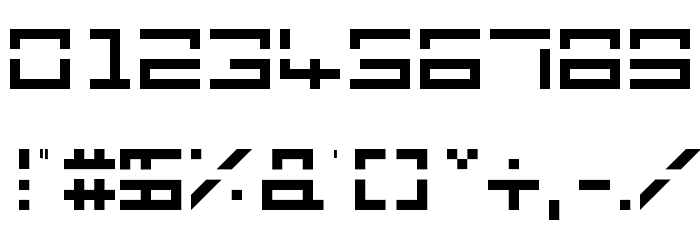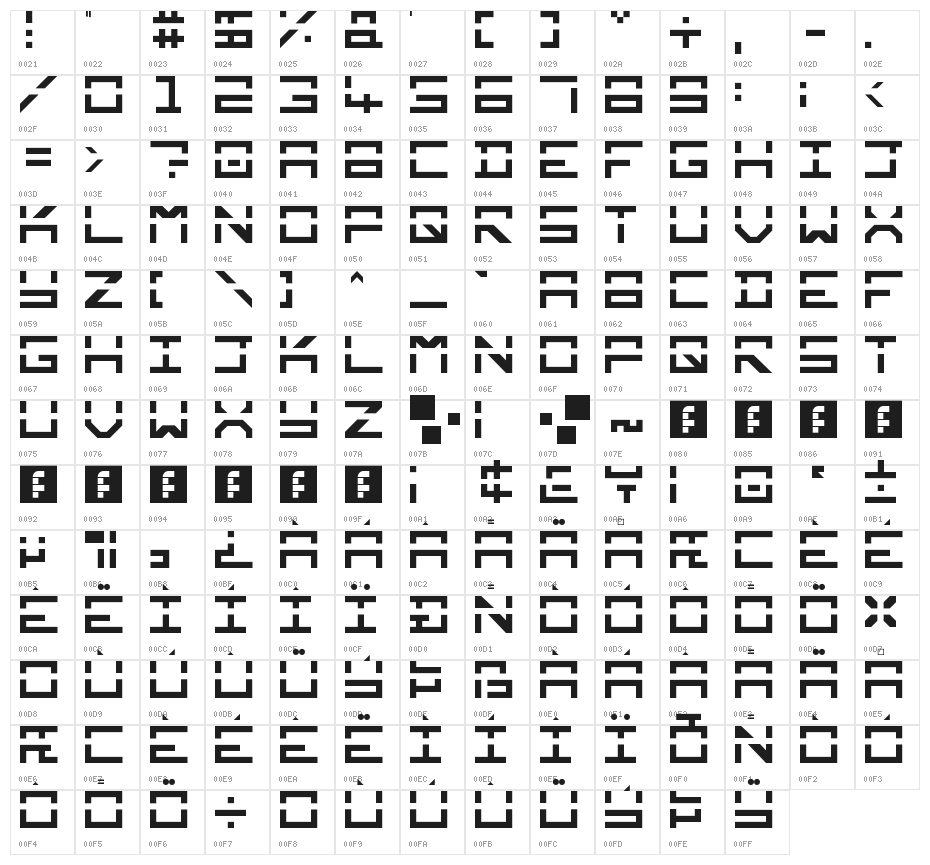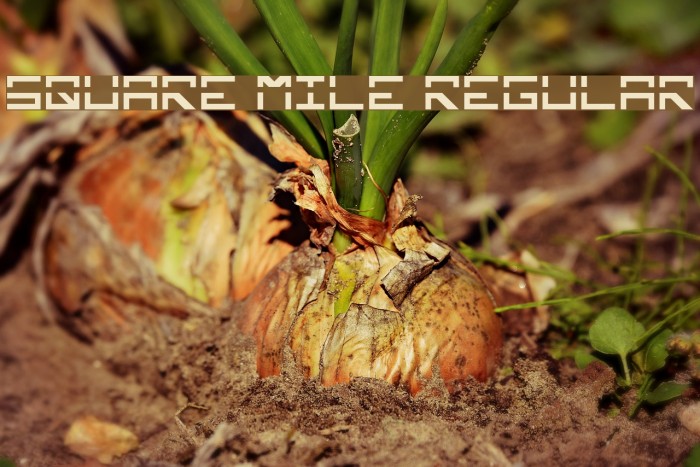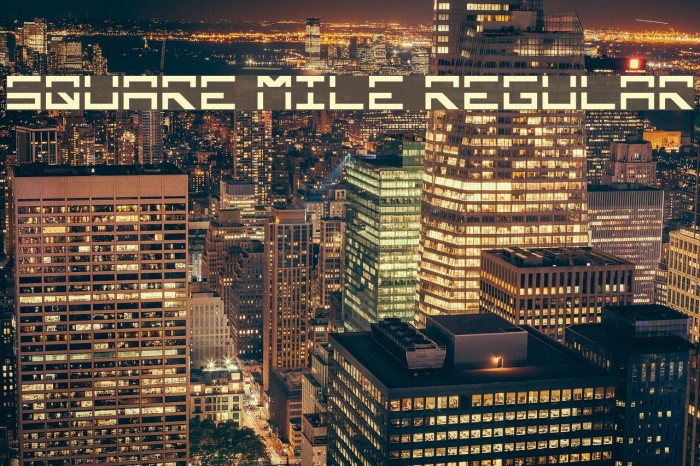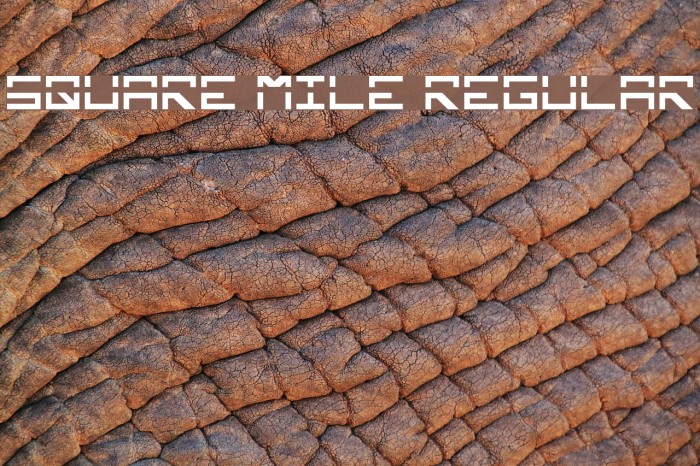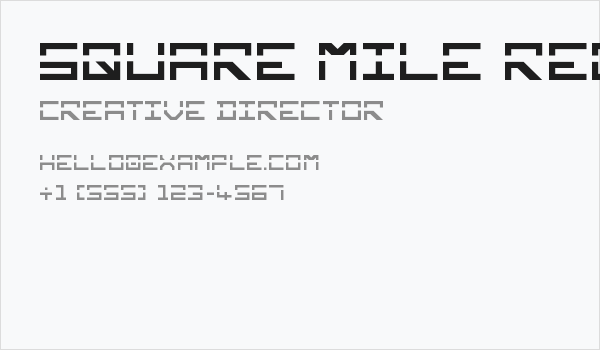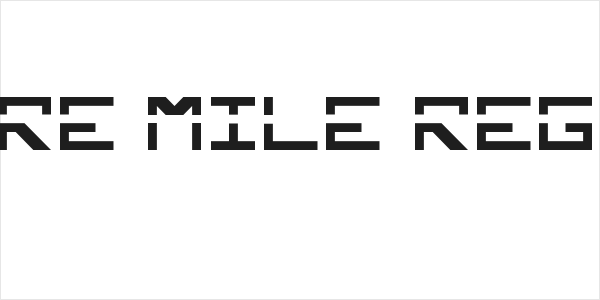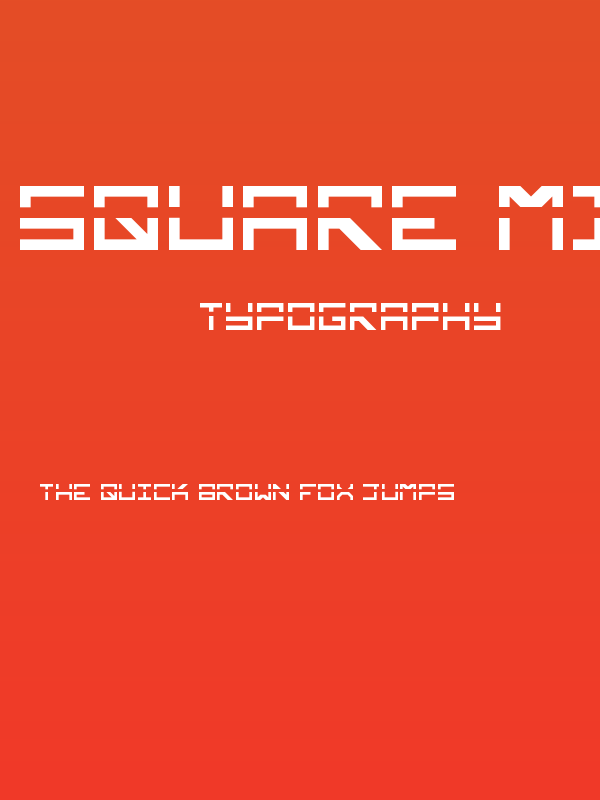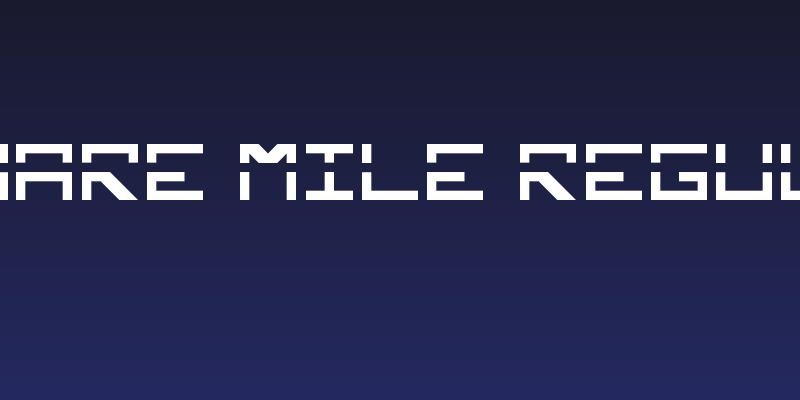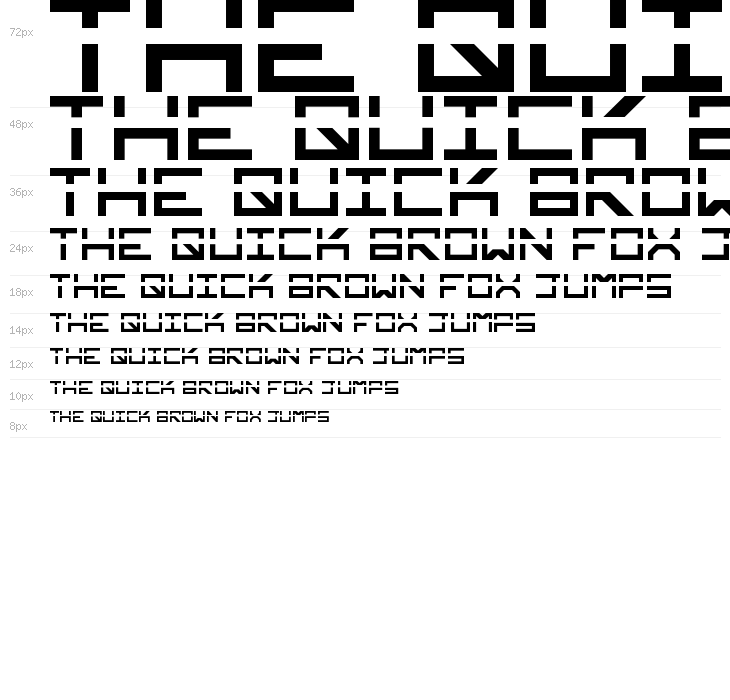
Square Mile Regular Font
Square Mile Regular Description
This font features a geometric, block-like design with a futuristic and digital aesthetic. The characters are constructed with straight lines and sharp angles, giving them a mechanical and structured appearance. The uppercase and lowercase letters maintain a consistent height, contributing to a uniform and cohesive look. The numerals and special characters follow the same design principles, ensuring a seamless integration across different text elements. The font's bold and striking style makes it ideal for projects that require a modern and tech-savvy feel.
| Proposed Projects | Ideal for tech-related branding, digital interfaces, video game design, and futuristic posters. |